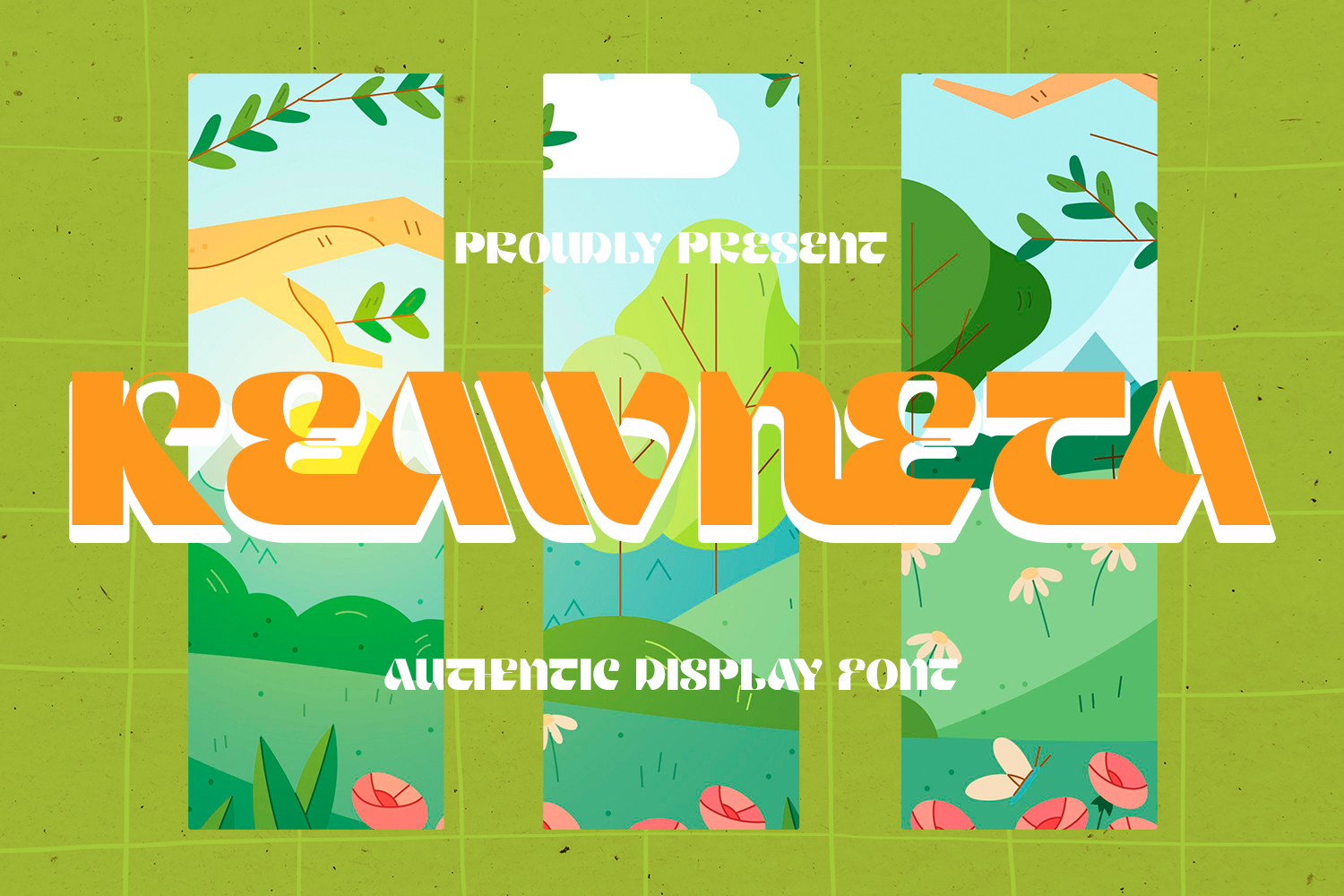
Keawneta - Authentic Display Font
Hello Everyone, Introduce our new collection, Keawneta – Authentic Display – Bold Display With 15 Ligatures, Inspired from Modern logos of brands that have very strong characteristics, very suitable for posters, t-shirt, packaging, branding, logotype and more. Keawneta font with strong and challenging nuances. very suitable for the title, typography, Poster, magazines, brochures, packaging,Websites and much more for your design needs, making your designs more modern and professional.